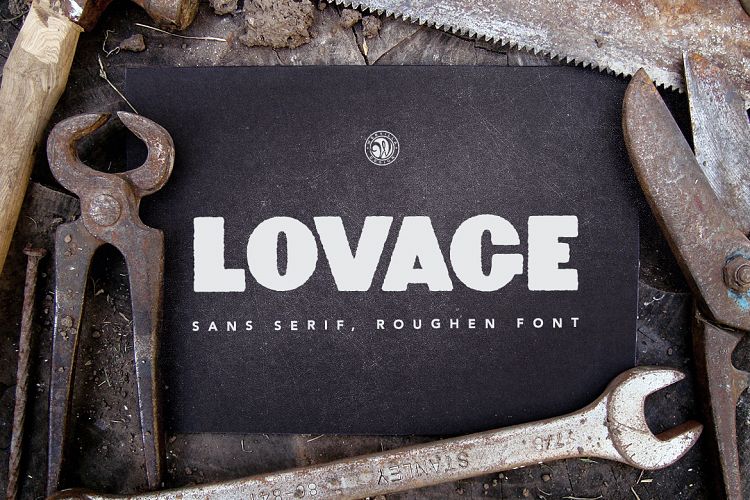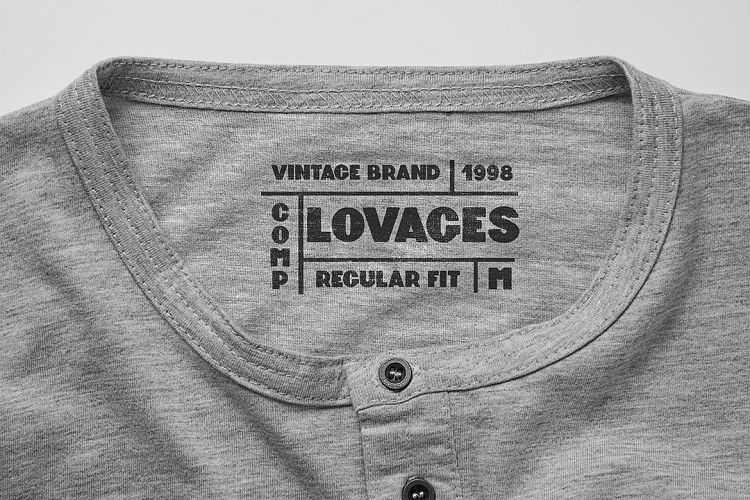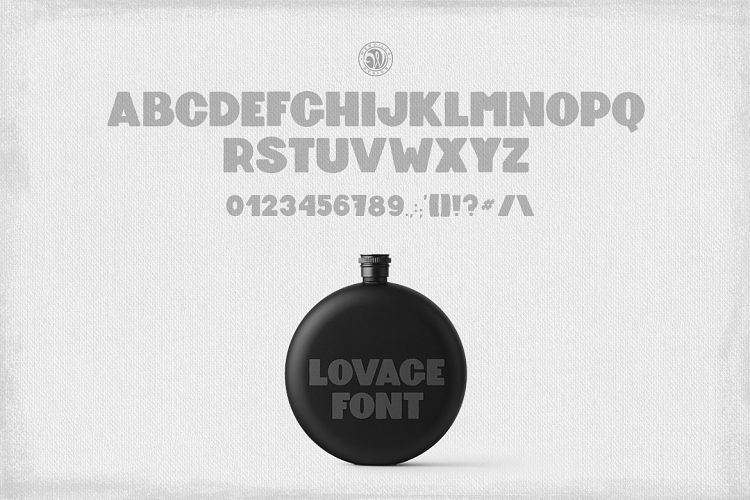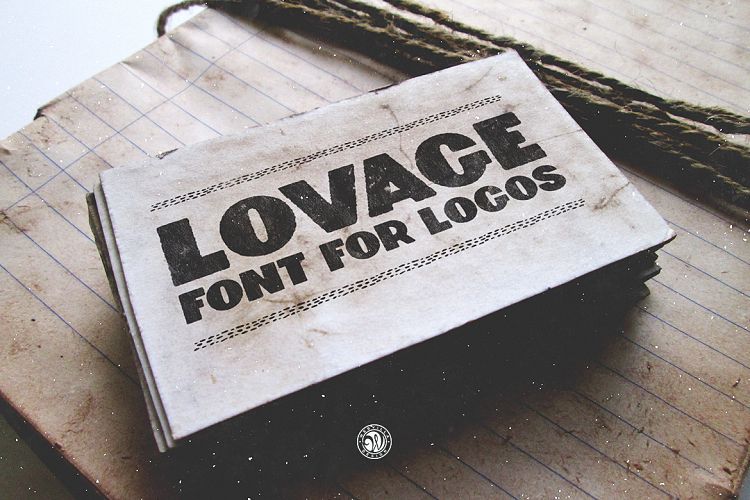
Lovage Font
Lovage font – sans serif, roughen font. Ideal for logos, branding, blogs, handmade craft items, scrap booking, printed paper items and more.